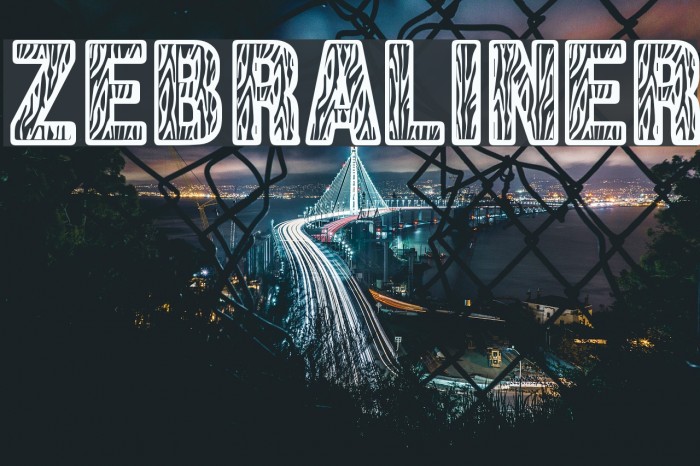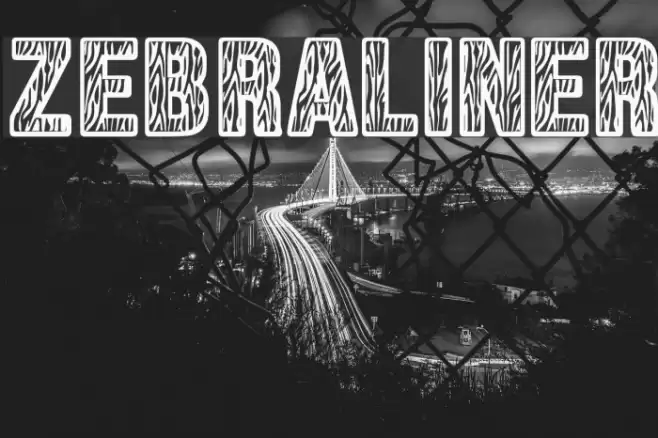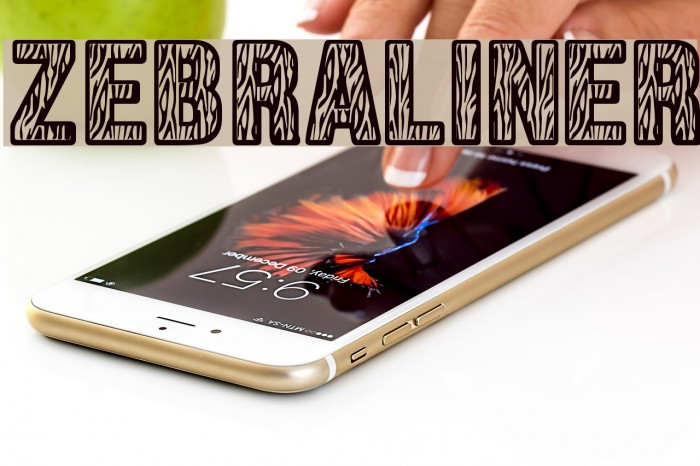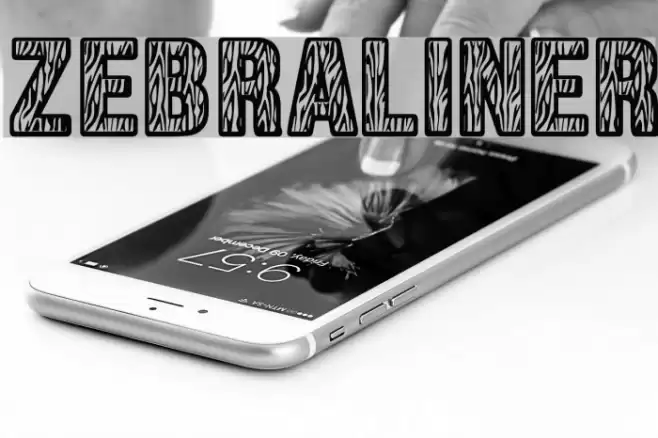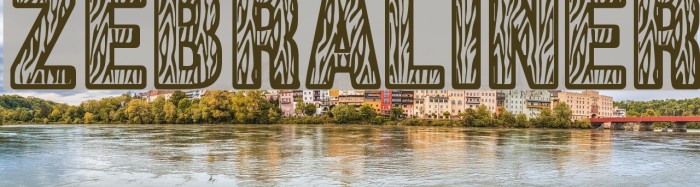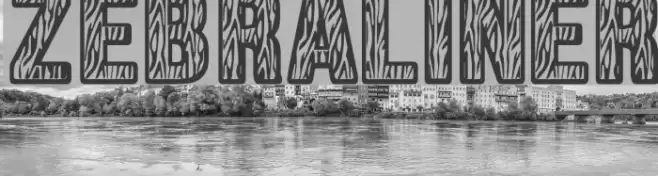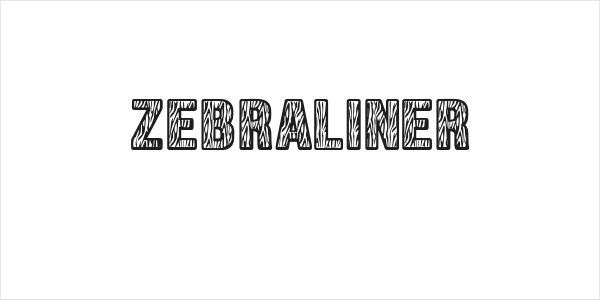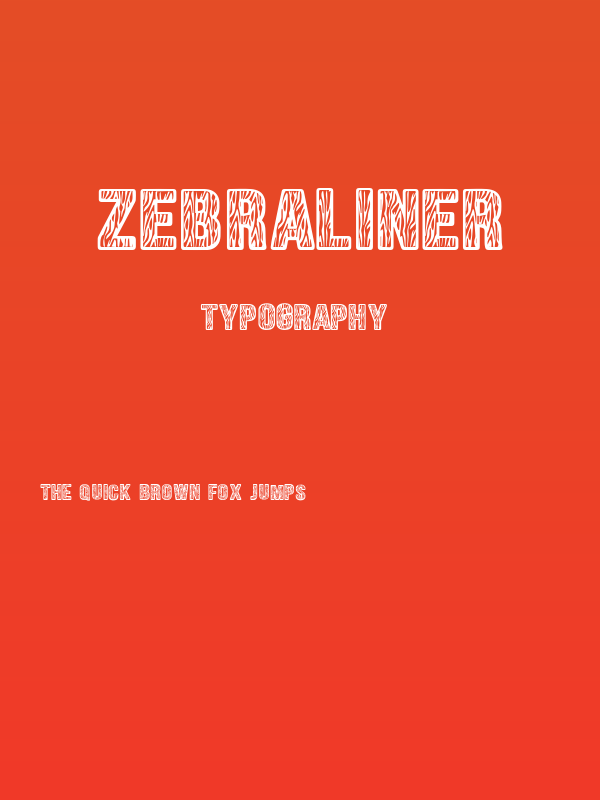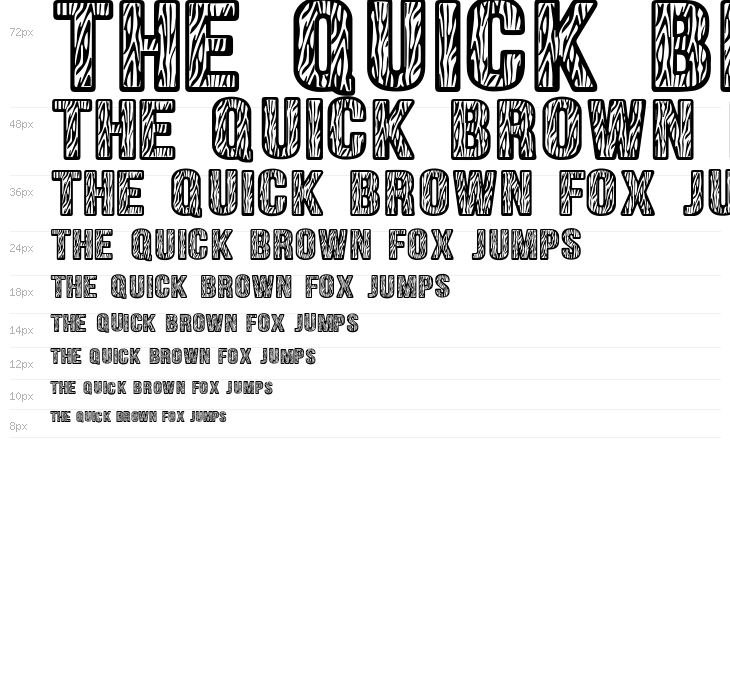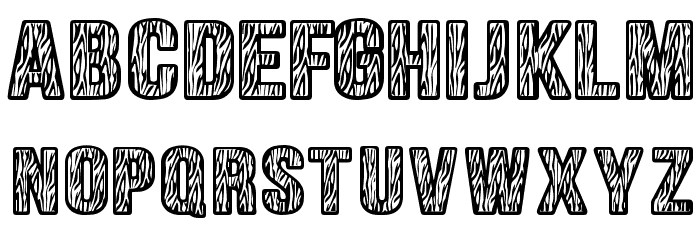
Zebraliner Font
Zebraliner Description
This font features a bold, decorative style with a unique zebra stripe pattern filling each character. The uppercase letters are designed with a strong presence, making them ideal for attention-grabbing headlines or creative projects. The pattern within each letter adds a playful and dynamic element, while the overall structure remains clear and legible. The font's design is consistent across all characters, providing a cohesive look that can enhance various visual compositions.